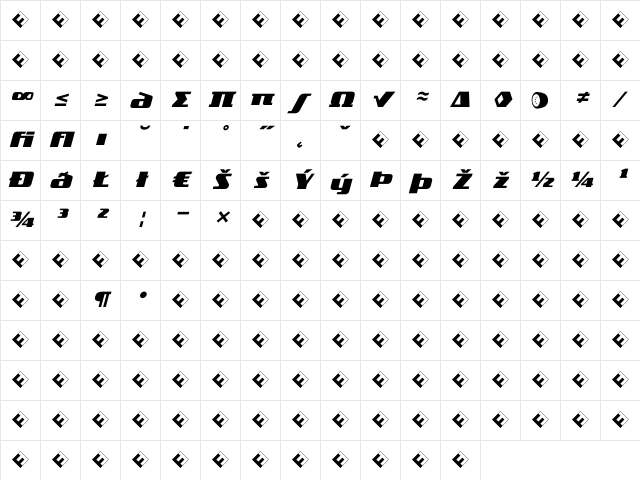
TradeMarker FatItalicExp
Style: FatItalicExp
Complete TradeMarker FatItalicExp glyph index. Displaying only characters natively supported by TradeMarker FatItalicExp font.
Design Context for TradeMarker
TradeMarker is a composed and adaptable typeface that performs quietly and consistently across a wide range of design contexts. The slanted form adds forward momentum and visual energy.
Pro Tip: Use TradeMarker for emphasis, pull quotes, and subheadings where its slanted energy can add rhythm to the layout.